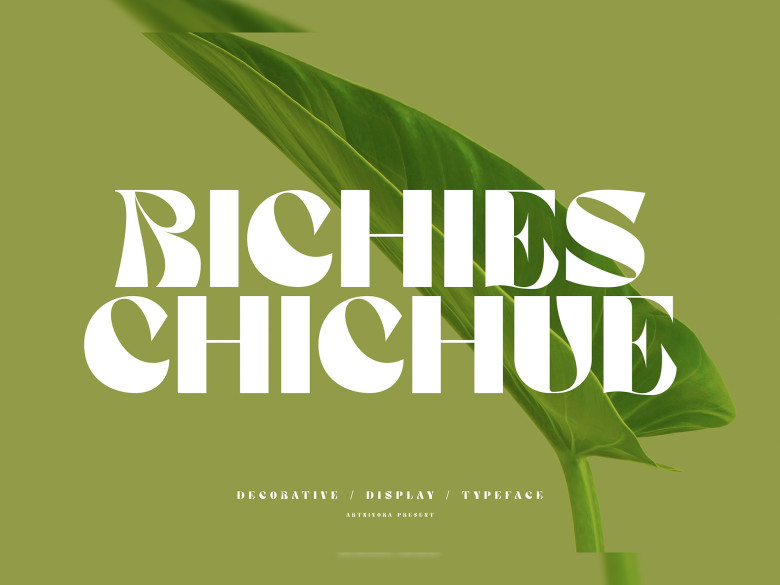
Richieschichue Font
Richieschichue is an attractive yet simple display font. Perfect for logos, magazines, social media posts and brochures alike.
Richieschichue Display Font